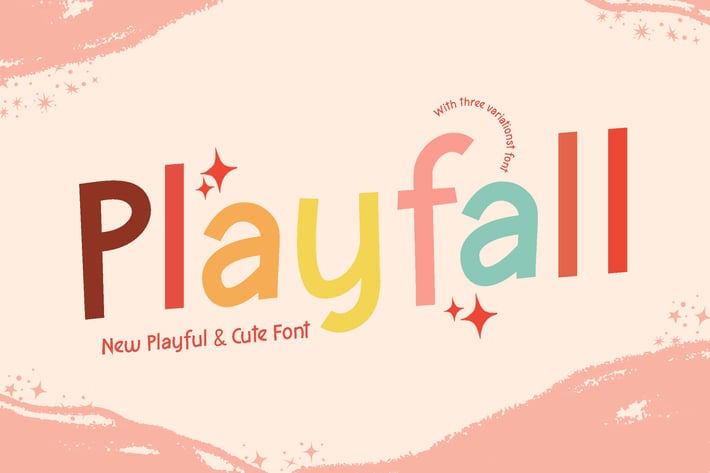
Playfall Kids Education Font
Playfall is fresh and cute font, made manually using standard pen. This font is perfect for any educational design like school poster, ecourse promotion, book cover, zoo, clothing, and many others